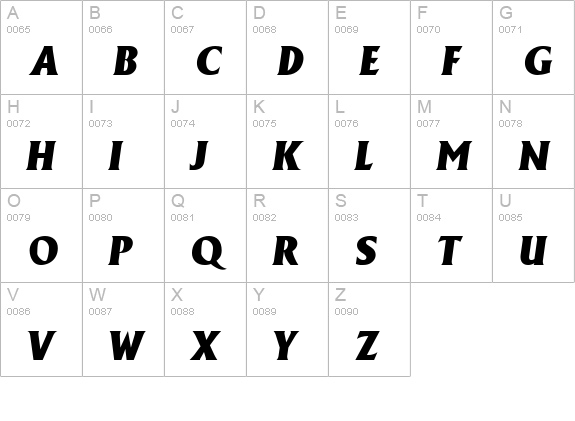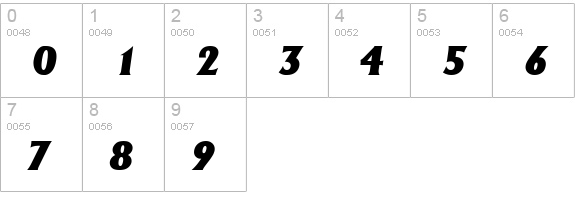
Ankura SSi Italic is a distinctive, italic variant in the Ankura typeface family \xE2\x80\x94 well suited to design and typography projects.
Ankura SSi Italic font is a stylish and elegant typeface that exudes sophistication and modernity. Its sleek italic design adds a touch of flair to any text, making it perfect for use in branding, advertising, and editorial projects. The flowing curves and sharp angles of Ankura SSi Italic create a dynamic and eye-catching look that is sure to capture attention. What makes Ankura SSi Italic even more appealing is that it is available for free download at FontsMarket.com. This means that you can easily access this high-quality font without having to spend a dime. Whether you're a designer looking to enhance your projects or a creative individual in need of a fresh font for personal use, Ankura SSi Italic is a fantastic choice that won't break the bank. Download it today and elevate your designs with this versatile and stylish typeface.